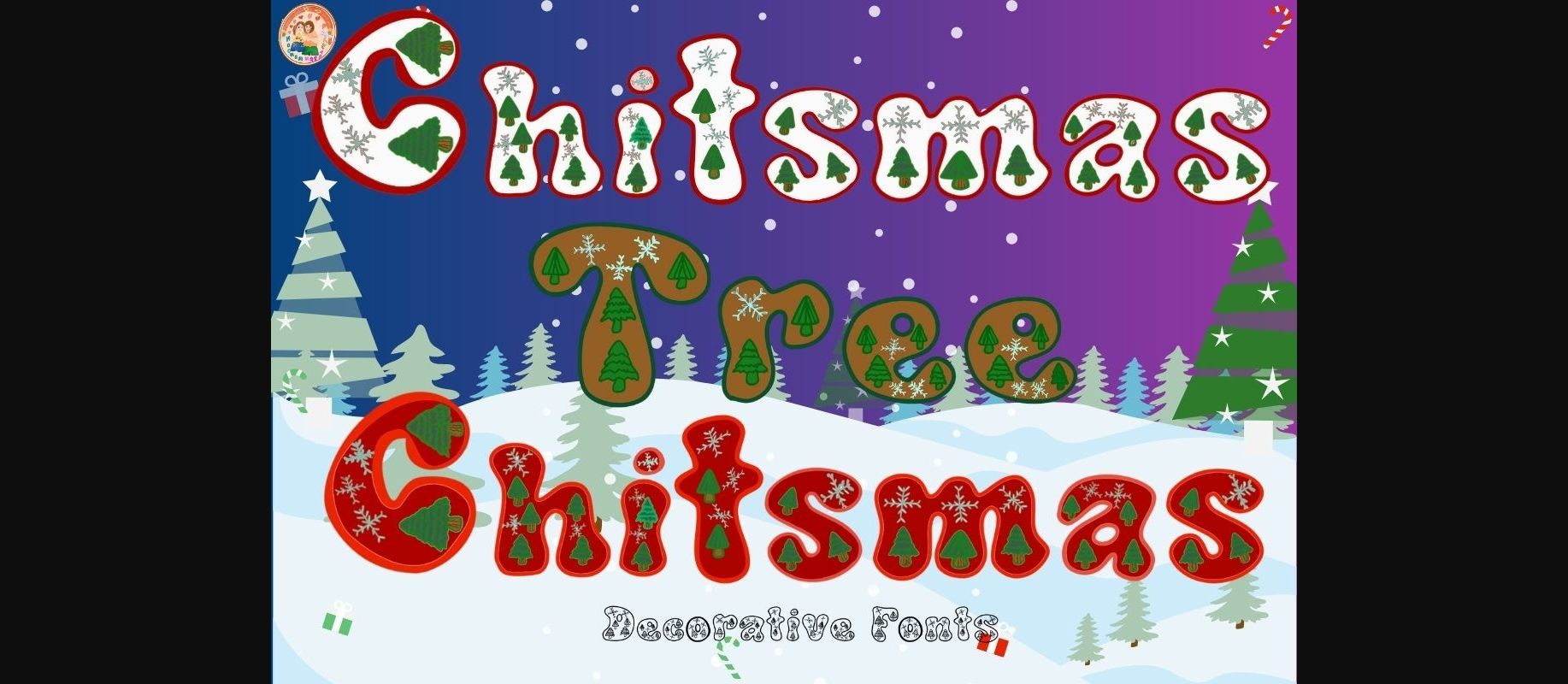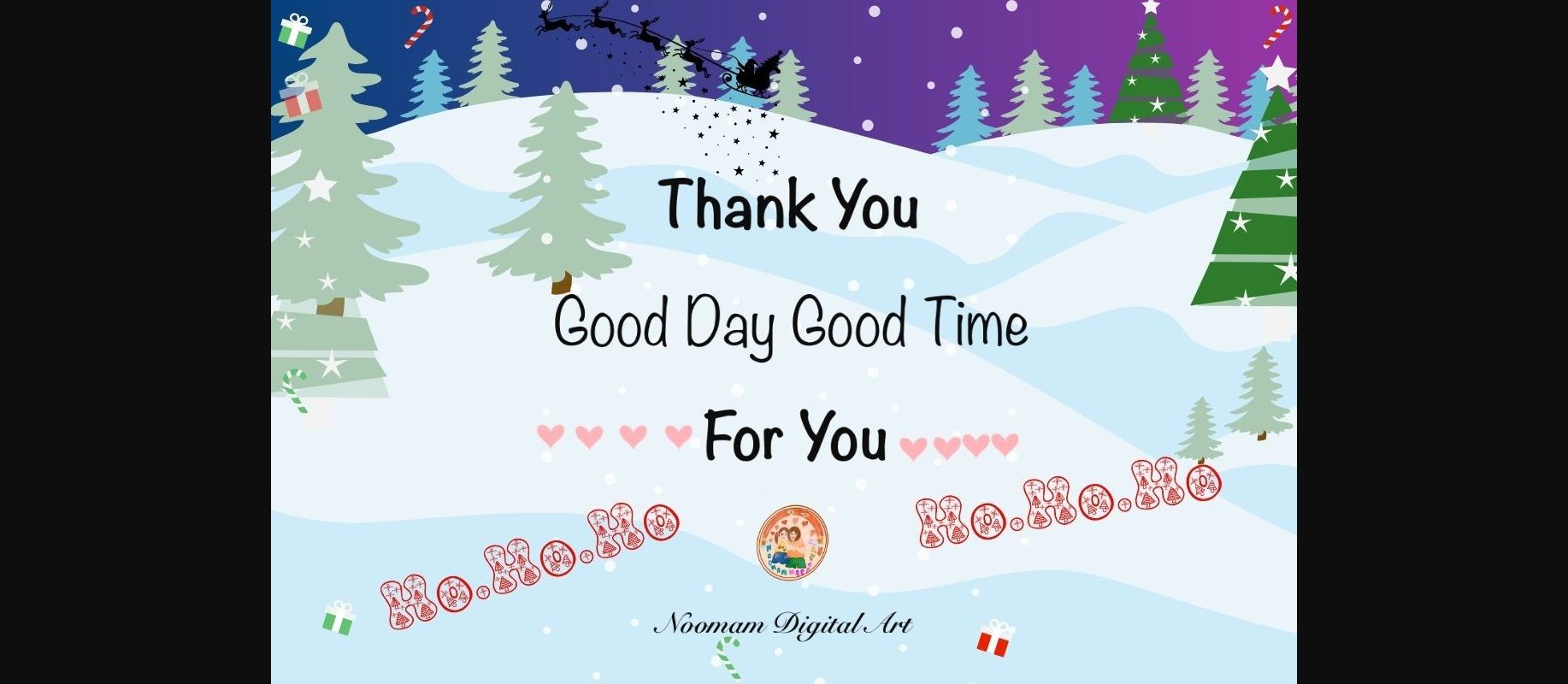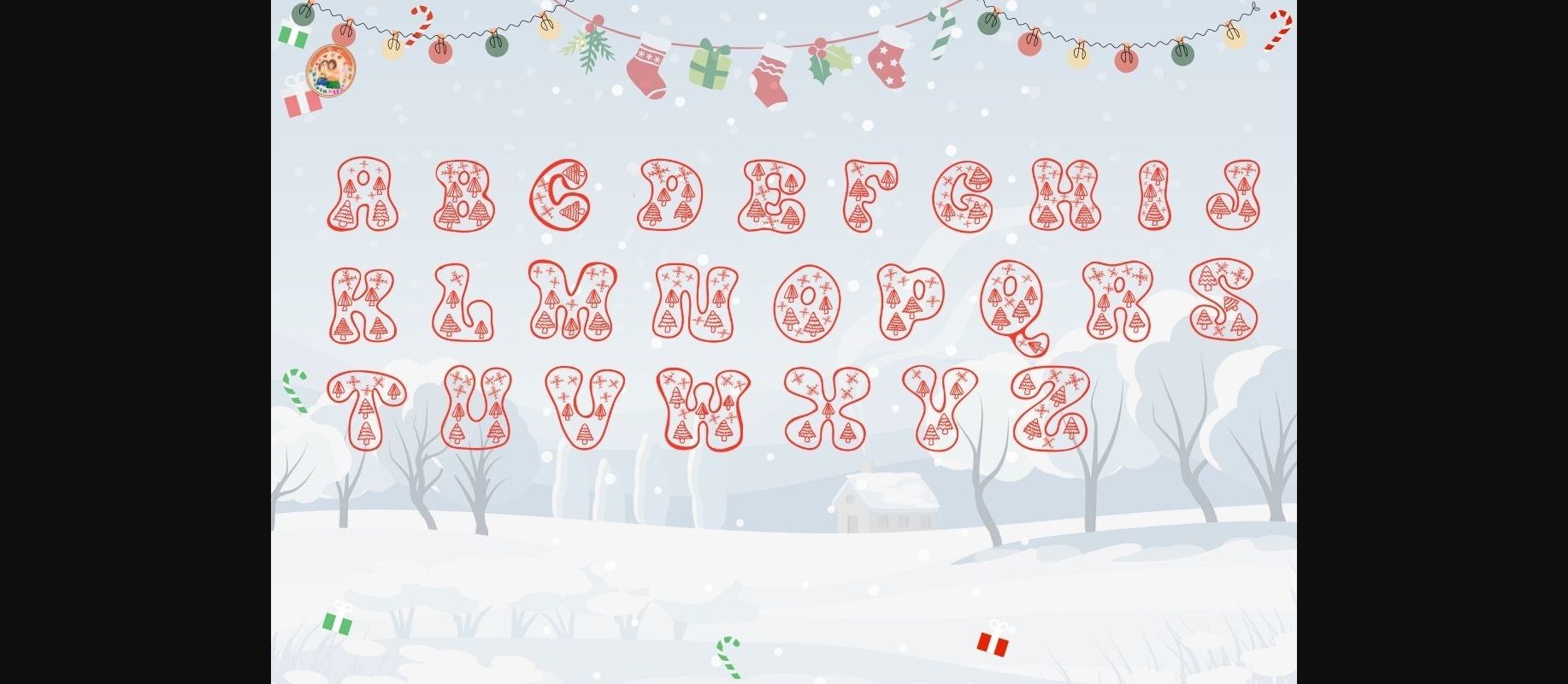
About Christmas Tree Font
Christmas Tree font is a delightful decorative typeface that adds a festive touch to your designs. Each letter is intricately designed with charming Christmas trees, capturing the holiday spirit in every character. Whether for holiday cards, invitations, or seasonal crafts, Christmas Tree font brings a touch of yuletide magic to your words.